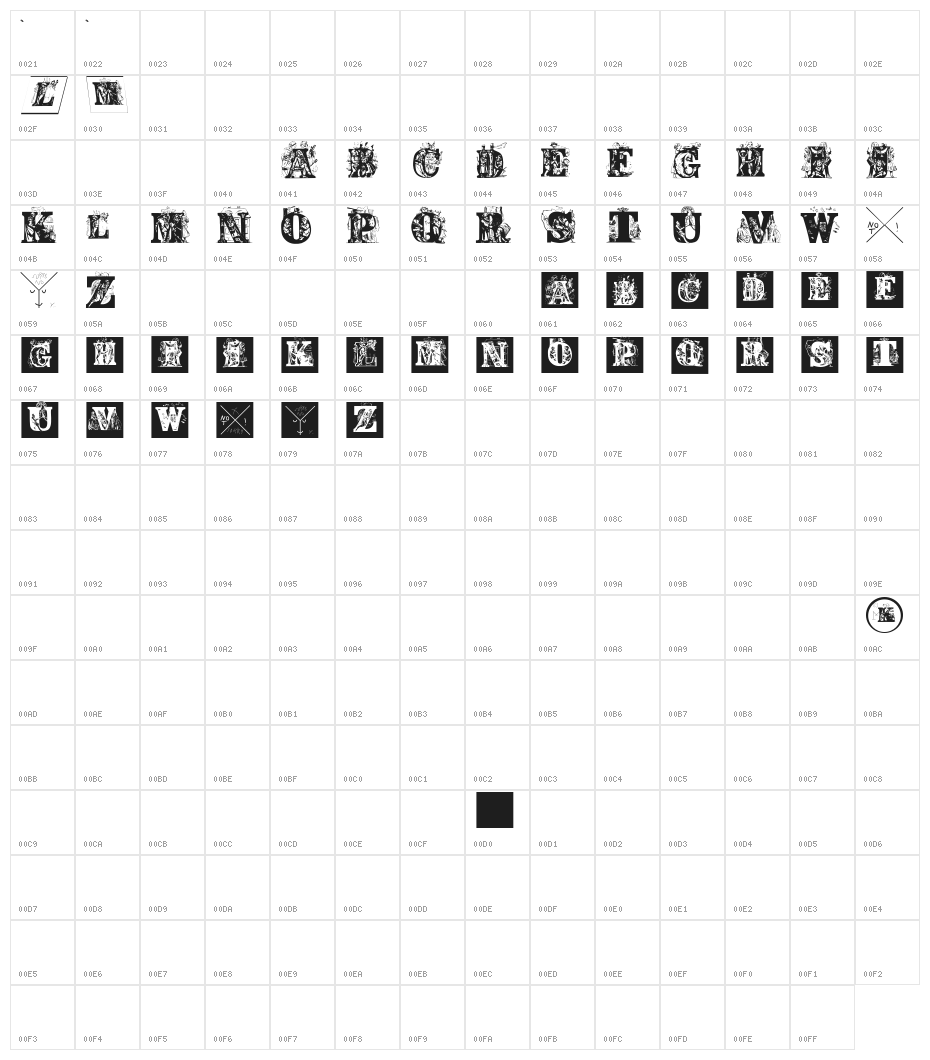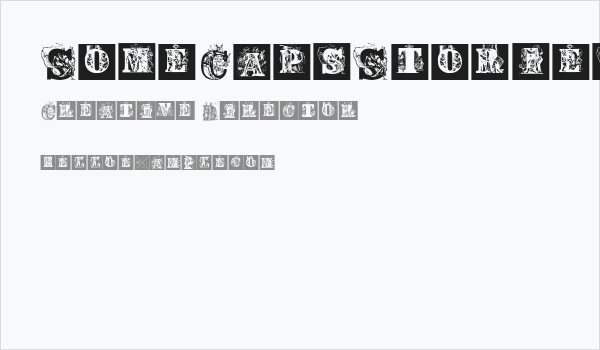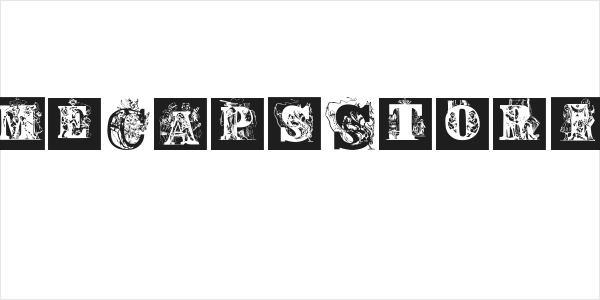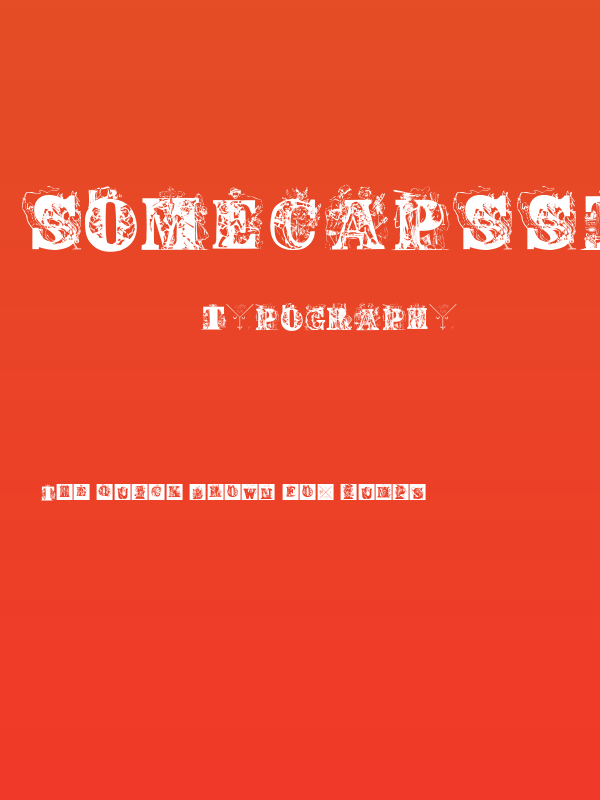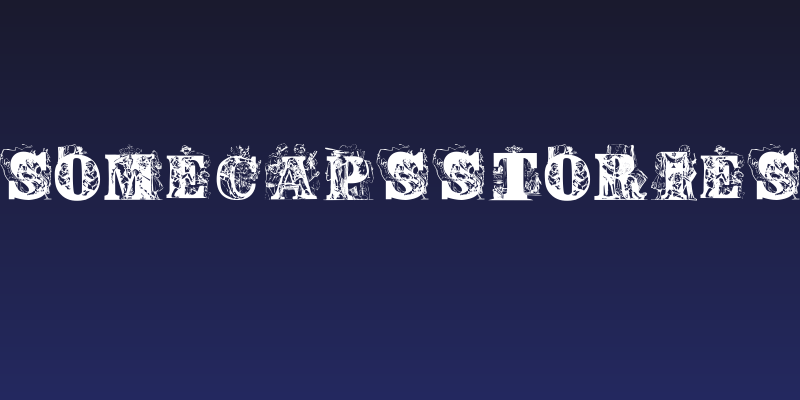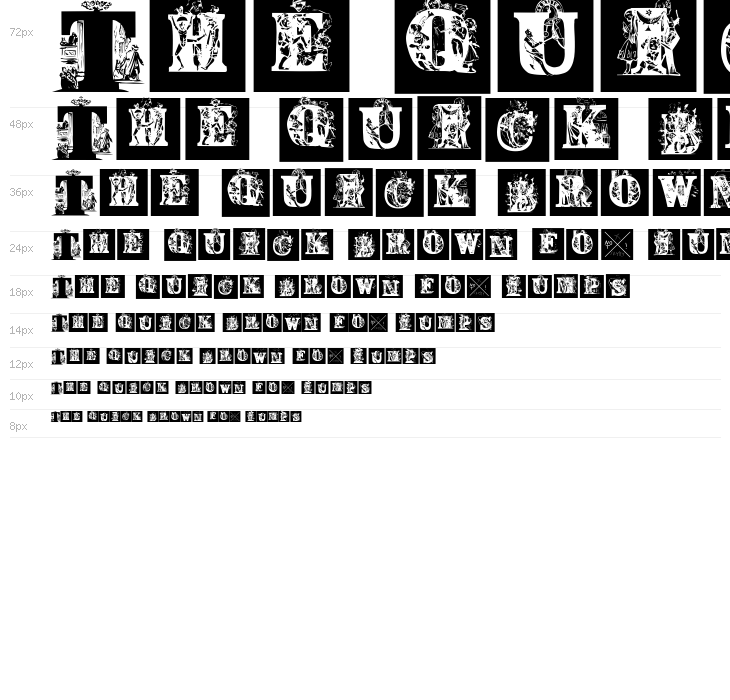
SomeCapsStories Font
✎ Retro
| कंट्रास्ट | High |
| समग्र शैली | Vintage |
| उपयोग का मामला | Headlines, Logos |
| सुझाए गए प्रोजेक्ट | Ideal for book covers, posters, and artistic projects that require a vintage or storybook aesthetic. |